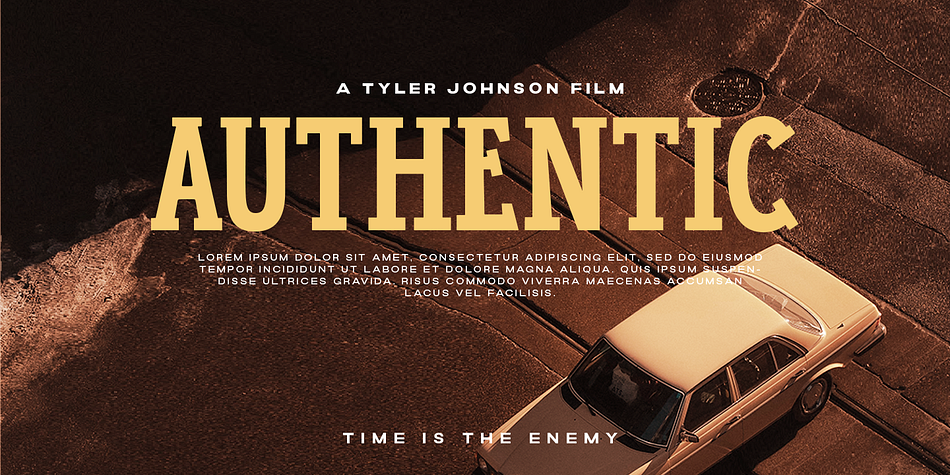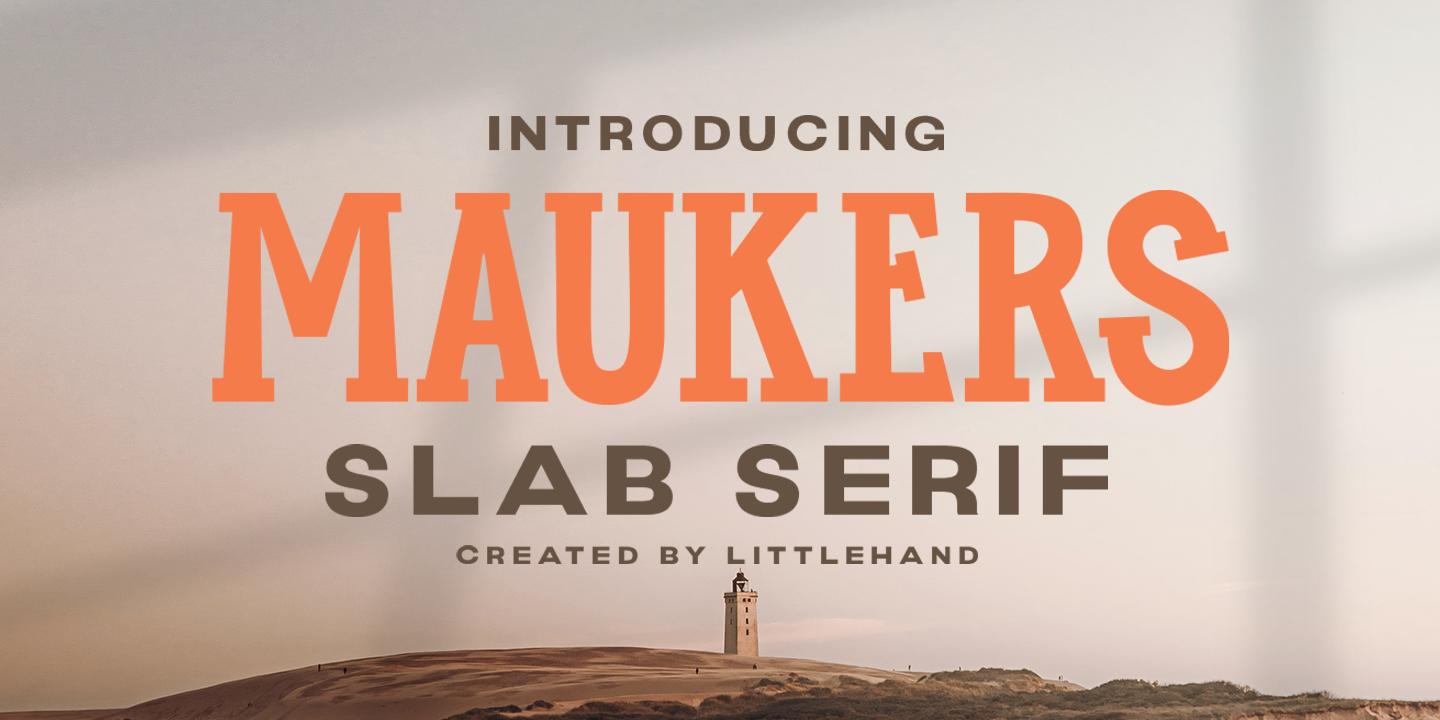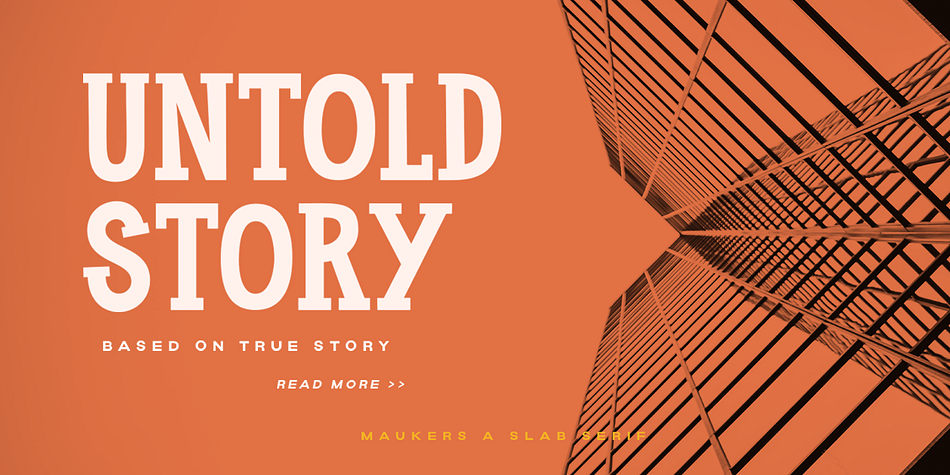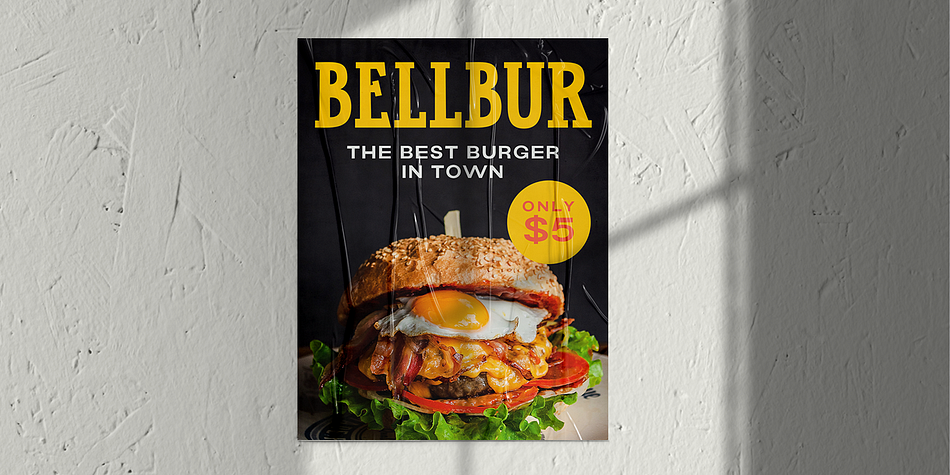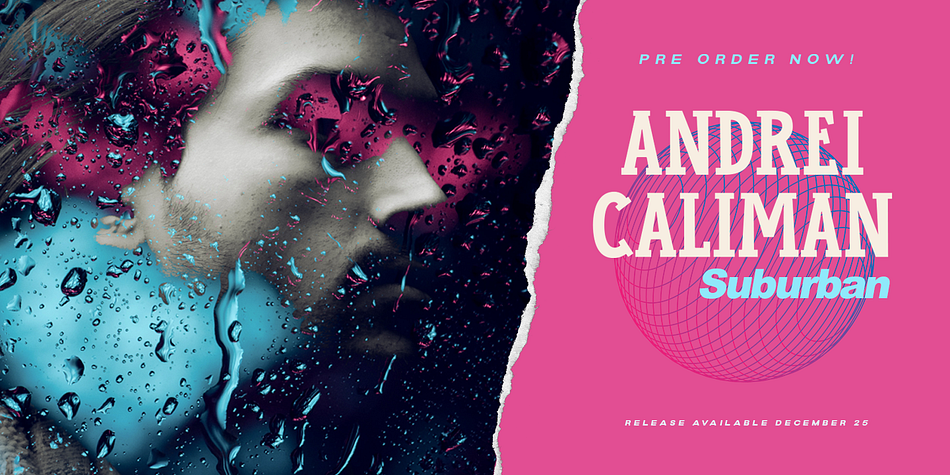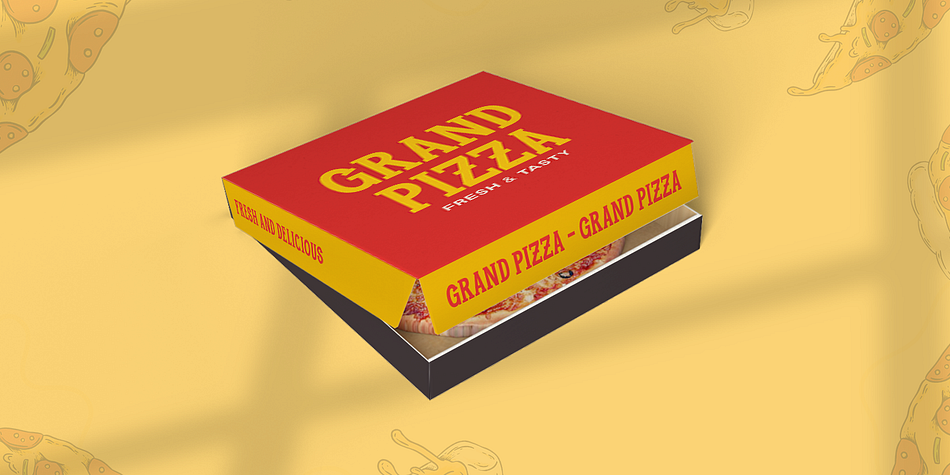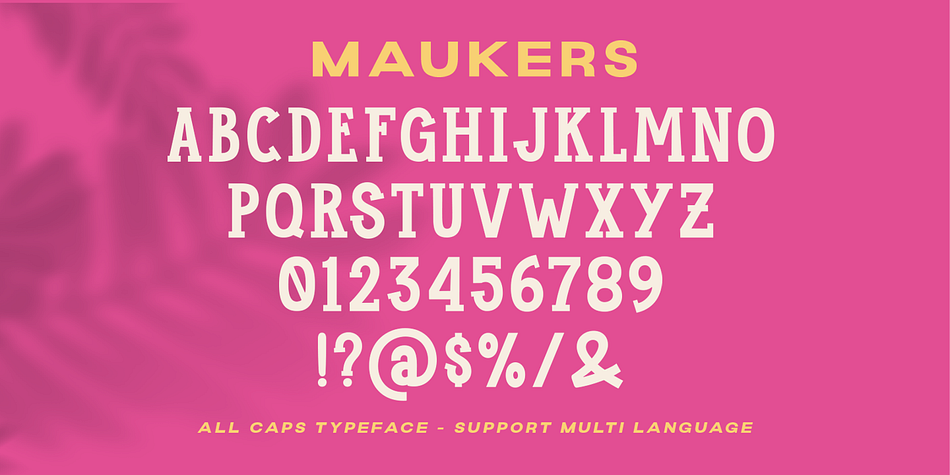
MAUKERS
Designed by Hendry Juanda, Maukers is a display slab and slab serif font family published by Letterhend Studio.
Maukers is a classic slab serif font, suitable for design needs with a touch of classic western. The style make this font looks great and standout for tittle, headline, logo, etc. Perfectly to be applied to the other various formal forms such as invitations, labels, logos, magazines, books, greeting / wedding cards, packaging, fashion, make up, stationery, novels, labels or any type of advertising purpose.
- alternates & ligatures
Styles Display Slab, Slab Serif